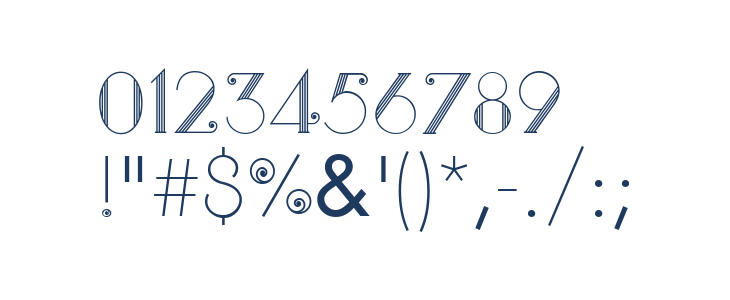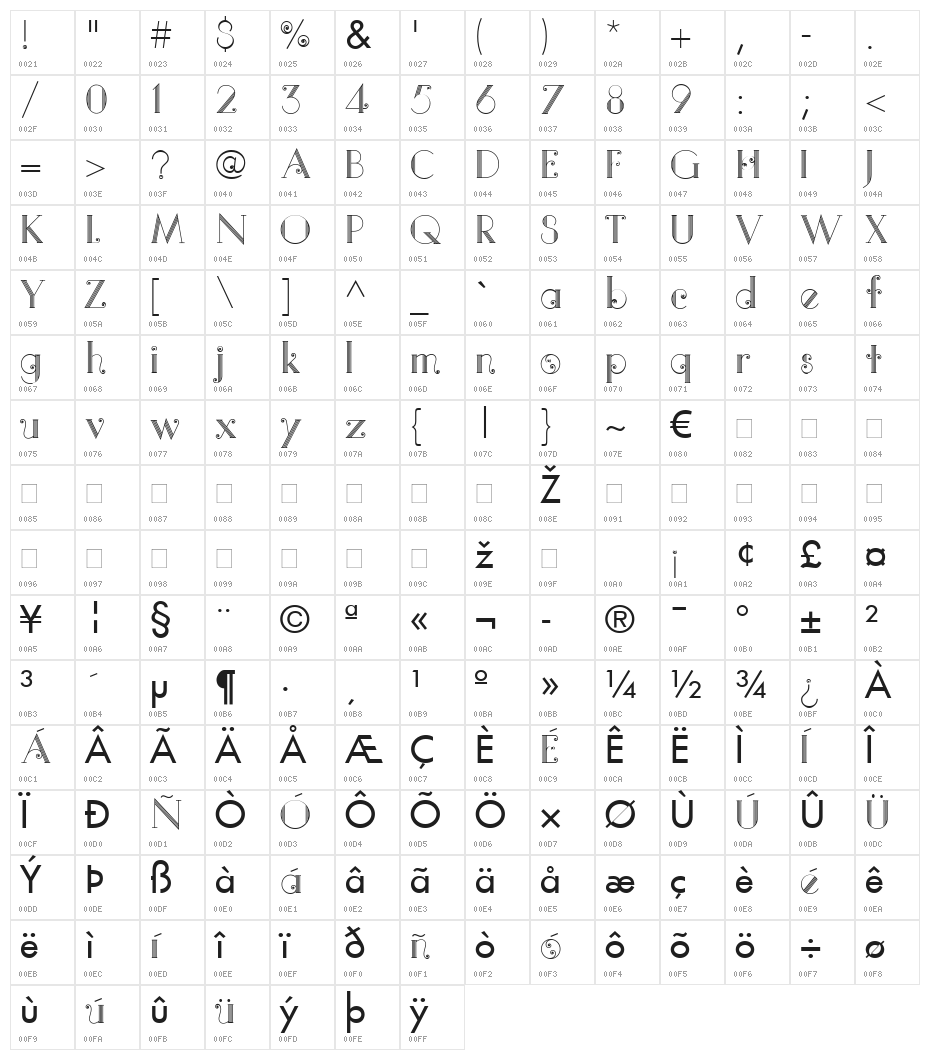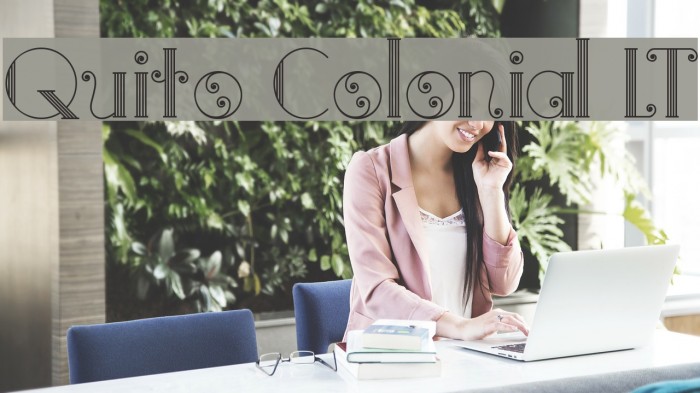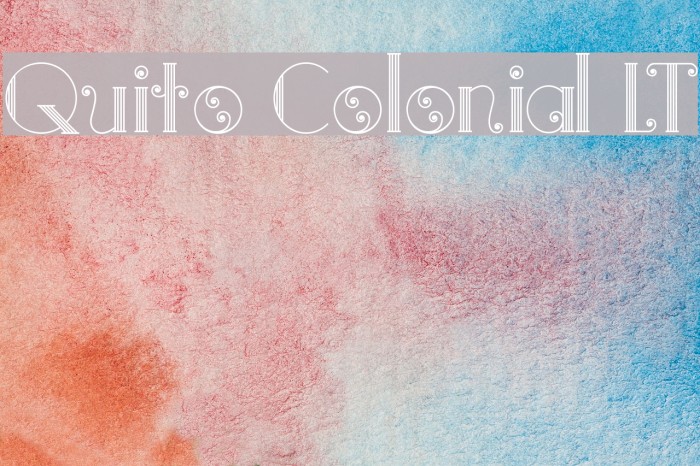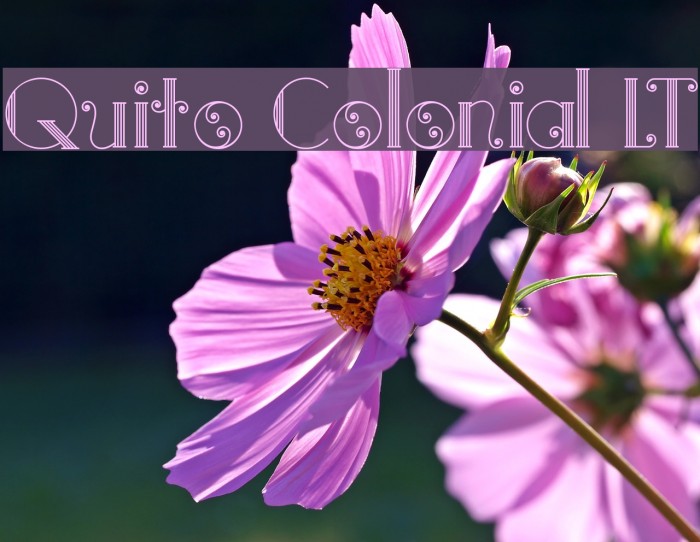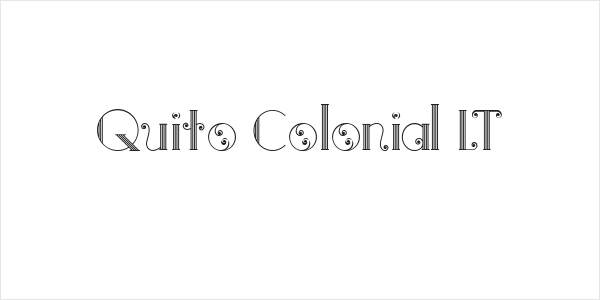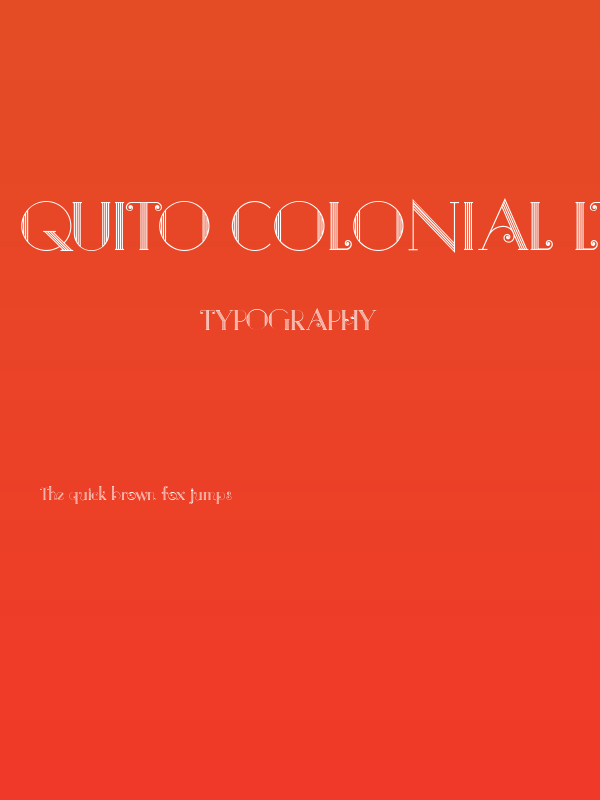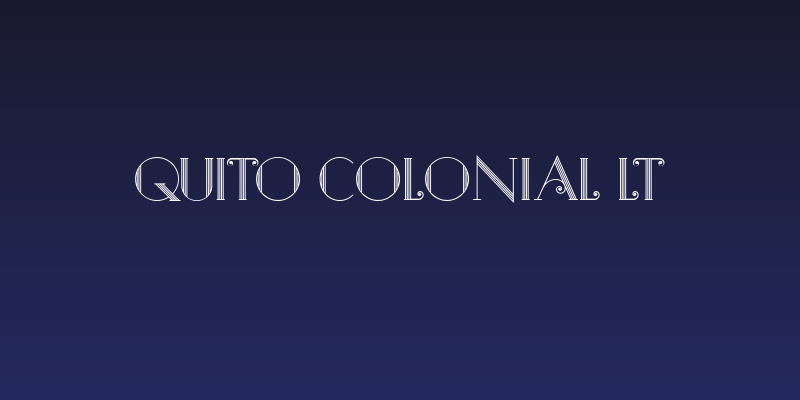
Quito Colonial LT Font
Quito Colonial LT Description
This font features a unique blend of elegance and playfulness, characterized by its decorative and intricate line work. The uppercase letters are adorned with vertical stripes and occasional swirls, giving them a sophisticated yet whimsical appearance. The lowercase letters maintain a similar style, with some characters featuring distinctive curls and loops. The numerals are equally ornate, with a consistent use of lines and curves that add to the font's overall charm. Special characters are designed with the same attention to detail, making them seamlessly integrate with the rest of the typeface. This font's distinct style makes it stand out, offering a creative and artistic flair.
| Proposed Projects | Ideal for invitations, branding projects, artistic posters, and any design requiring a touch of elegance and creativity. |